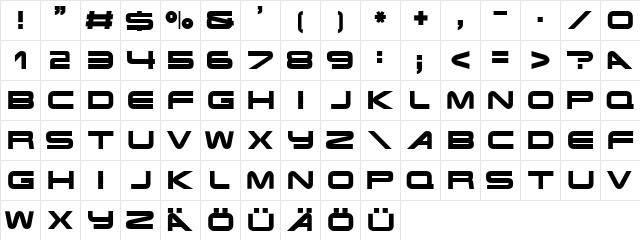
Terminator Real NFI Regular
| Designer | Thomas W. Otto |
Design Context for Terminator Real NFI Typeface
Terminator Real NFI is a composed and adaptable typeface that performs quietly and consistently across a wide range of design contexts.